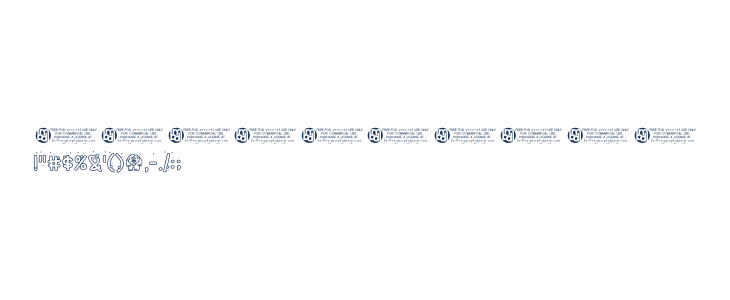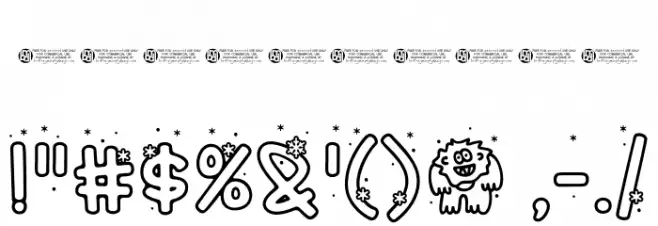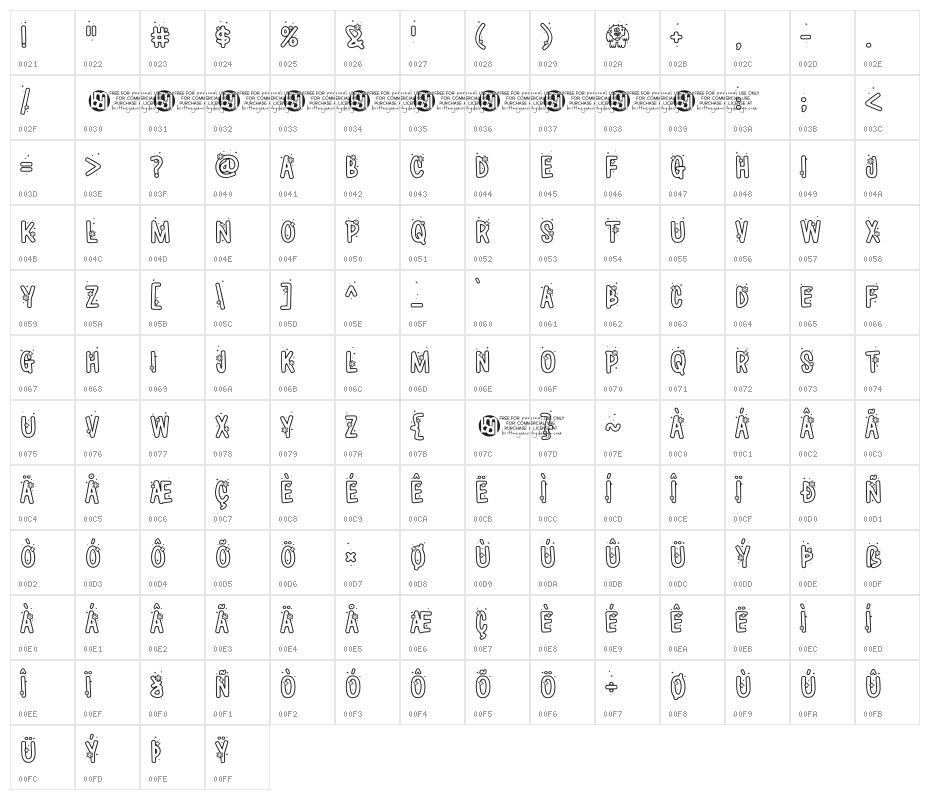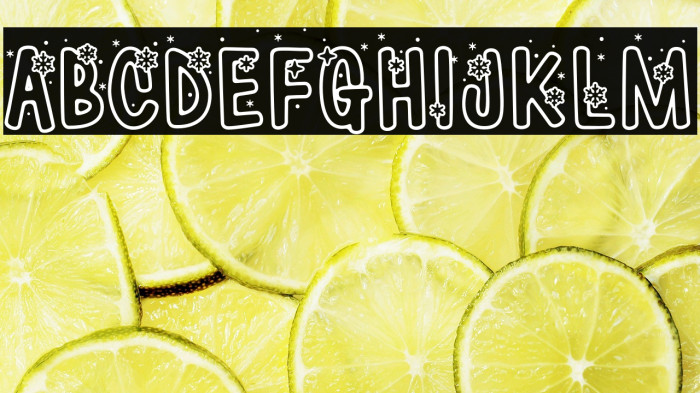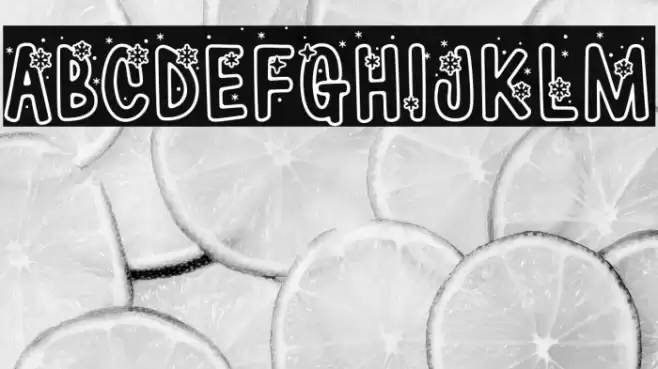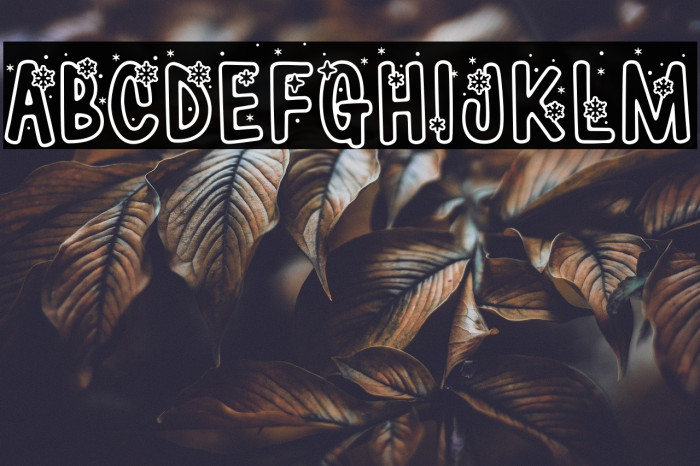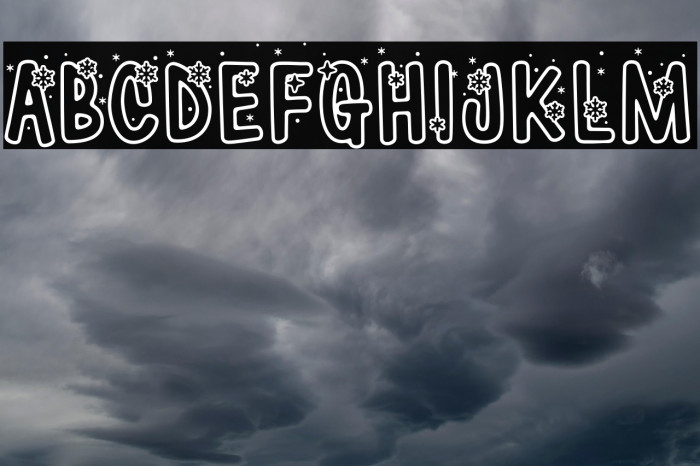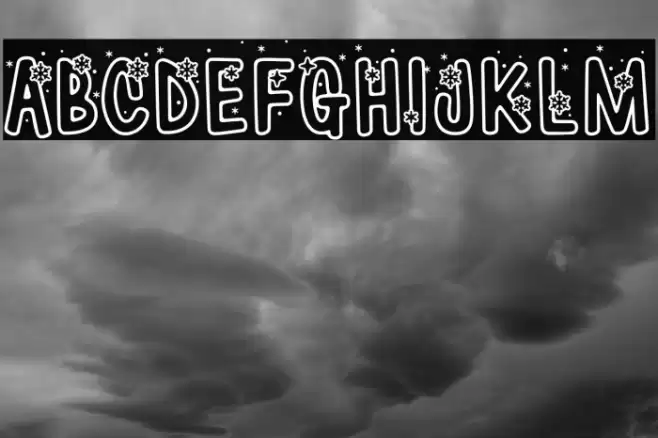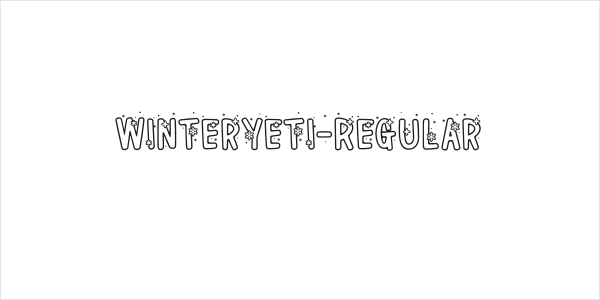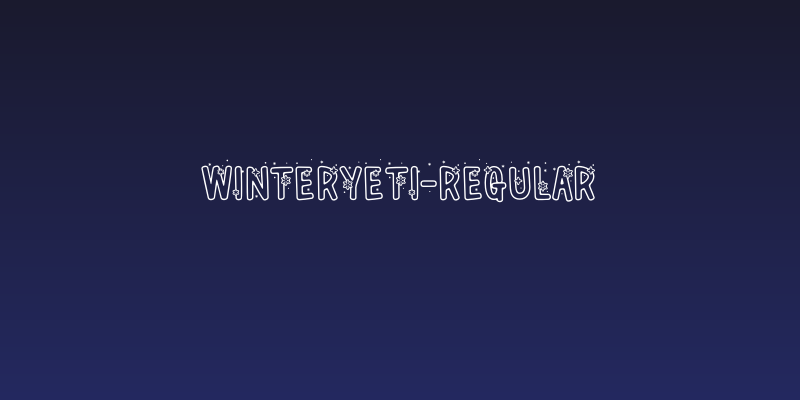
WinterYeti-Regular Font
WinterYeti-Regular Description
This playful and decorative font features bold, uppercase and lowercase letters adorned with whimsical snowflakes and stars. The characters have a cartoonish, outlined style that adds a fun and festive touch, making it perfect for winter-themed projects. The font includes a full set of letters, numbers, and a variety of special characters, each maintaining the same decorative theme. The overall appearance is lively and engaging, ideal for capturing attention in creative designs.
| Proposed Projects | Ideal for holiday cards, winter festival posters, children's book covers, and festive event invitations. |